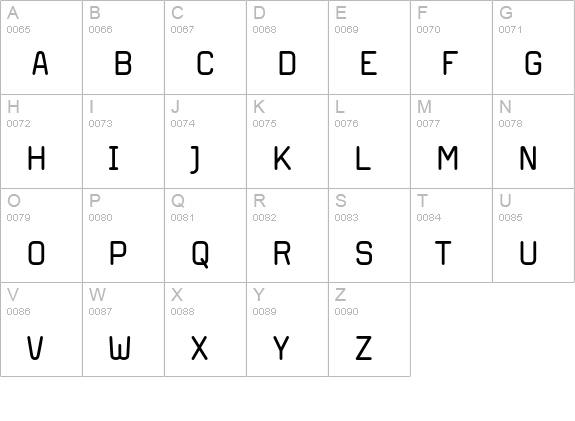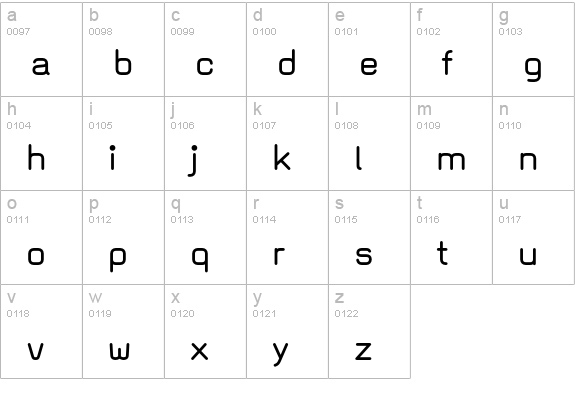
MagdaClean-Regular is the standard, neutral variant in the MagdaClean typeface family \xE2\x80\x94 well suited to general body text, paragraphs, and standard typographic work.
MagdaClean-Regular is a captivating font that exudes elegance, simplicity, and modernity. Its clean and balanced letterforms make it perfect for a wide range of design projects, from bold headlines to refined body text. With its versatile nature, this font can effortlessly enhance any creative endeavor. What sets MagdaClean-Regular apart is not only its exceptional design but also its accessibility. It is proudly offered as a free font, allowing designers and enthusiasts alike to experience its beauty without any financial constraints. This means that anyone can freely download and use MagdaClean-Regular, making it an invaluable asset in the world of typography. To obtain this remarkable font, simply visit FontsMarket.com, where you will find a wealth of free fonts at your disposal. Discover the endless possibilities that MagdaClean-Regular offers and unlock your creativity with this extraordinary typeface. Whether you're working on a professional project or simply exploring your artistic side, MagdaClean-Regular is here to empower your design journey.